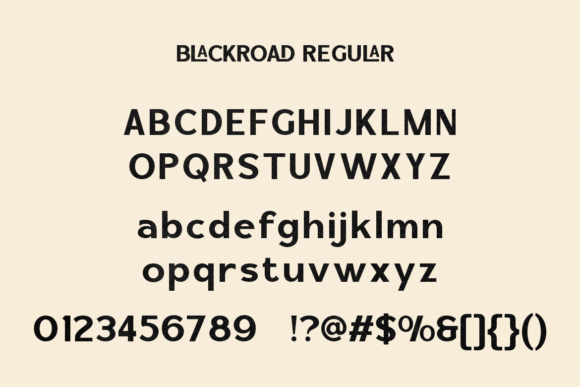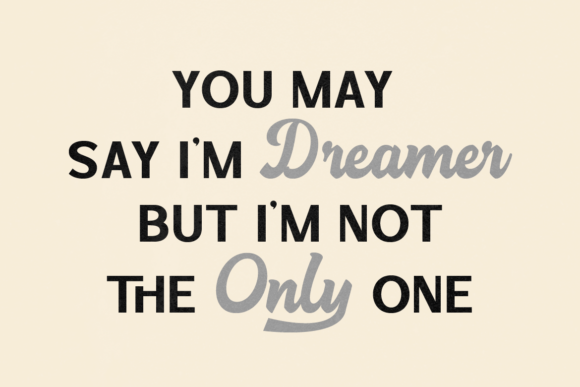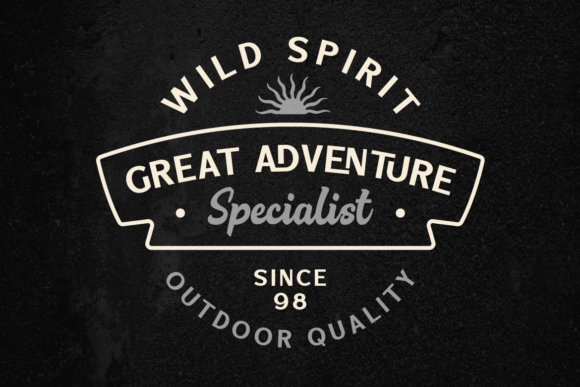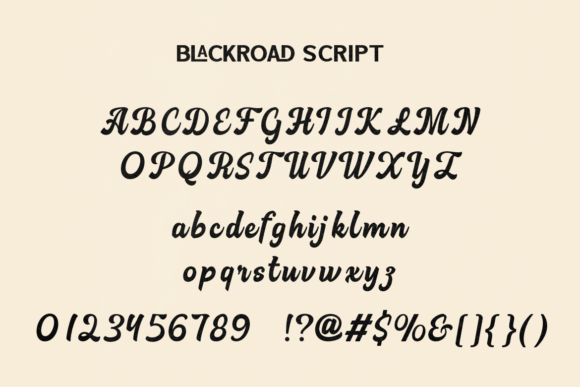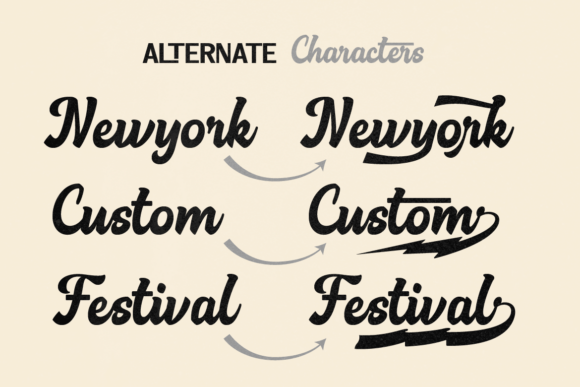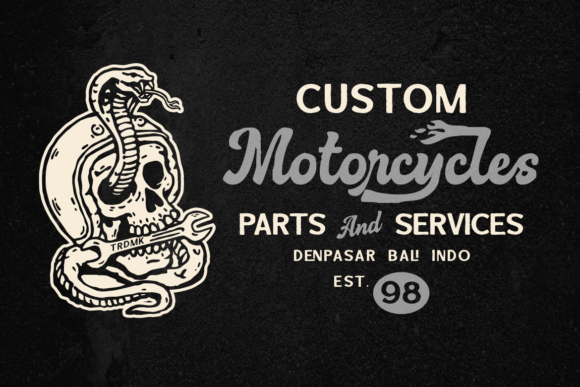
When Retro Meets Modern: Unleashing the Power of Blackroad Font
You’ve stared at your design project for hours, but something’s missing. That’s when you start to crave a font that exudes a strong sense of personality and style. You want something that screams ‘retro’ but still feels modern and clean. That’s exactly where Blackroad Font comes in – a bold and stylish duo font that will transport your designs to a bygone era.
Blackroad Font is more than just a font; it’s a tool for designers who crave that perfect blend of classic and rugged. With its clean sans serif and smooth vintage script, this font offers the perfect balance of readability and style. Whether you’re creating a logo, brochure, or advertisement, Blackroad Font will give your design a unique and authentic touch.
Blackroad Font Key Features
- Font Family: Blackroad is a modern sans-serif font designed for readability and versatility.
- Unique Characteristics: Blackroad features a unique blend of geometric and organic elements, resulting in a clean and sophisticated design.
Blackroad Font Review
Overall, I think Blackroad is a solid choice for designers looking for a clean and modern sans-serif font. Here are some of its strengths: ✨
- Legibility: Blackroad is extremely easy to read, even at small font sizes.
- Neutral: The font doesn’t lean too far in either direction, making it a great choice for most designs.
- Customization: The font offers a range of weights, from light to bold, which is perfect for creating visual hierarchy.
- Not ideal for body text: While Blackroad is great for headings and titles, it might not be the best choice for large blocks of body text.
- Lack of personality: Some designers might find Blackroad too generic or lacking in character.
Overall, I’d give Blackroad 4 out of 5 stars. It’s a versatile and well-designed font that’s perfect for most modern design projects. However, it might not be the best choice for designers looking for a font with a lot of personality or a specific aesthetic.
To get the most out of the Blackroad font, try combining it with bold or italic styles to add emphasis.
Use the font in conjunction with a clean and minimalist design to create a modern look.
The Blackroad font is commonly used for:
Alternatives to Blackroad Font for Designers
Monserrat is a modern sans-serif font that is highly legible and versatile. It is suitable for both digital and print media, making it a great choice for branding, advertising, and editorial content.
Compared to Blackroad Font, Montserrat has a more geometric and minimalist design, with a focus on clean lines and simple shapes. It is ideal for creating a modern and sleek look, while Blackroad Font has a more rugged and distressed feel.
Rockwell
Rockwell is a classic serif font that is known for its elegance and sophistication. It is suitable for formal and professional applications, such as business cards, resumes, and academic papers.
Compared to Blackroad Font, Rockwell has a more traditional and formal design, with a focus on serif details and a classic feel. It is ideal for creating a sense of professionalism and respect, while Blackroad Font has a more casual and rugged feel.
Playfair Display is an elegant and luxurious serif font that is perfect for creating a sense of sophistication and refinement. It is suitable for high-end branding, advertising, and editorial content.
Compared to Blackroad Font, Playfair Display has a more refined and ornate design, with a focus on intricate details and a classic feel. It is ideal for creating a sense of luxury and elegance, while Blackroad Font has a more rugged and distressed feel.